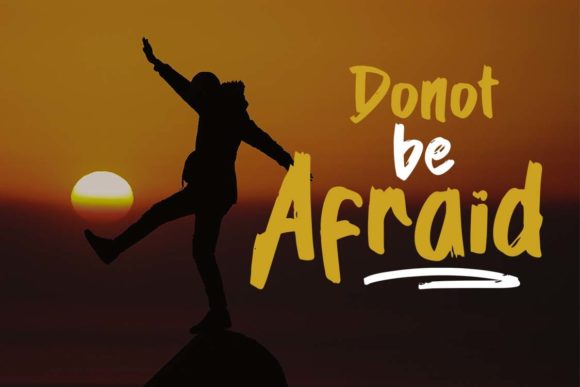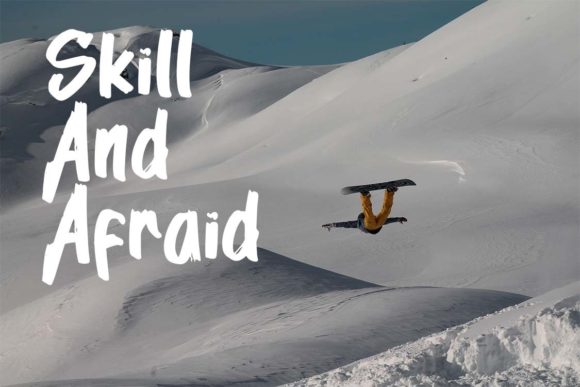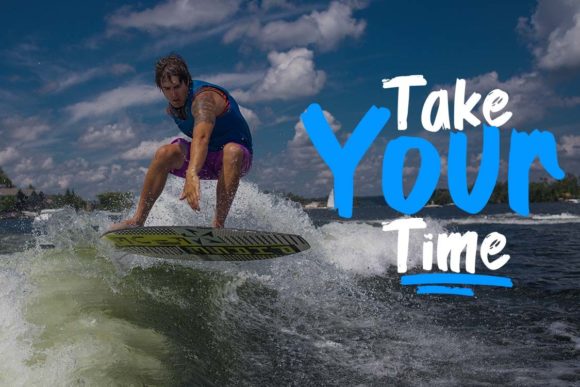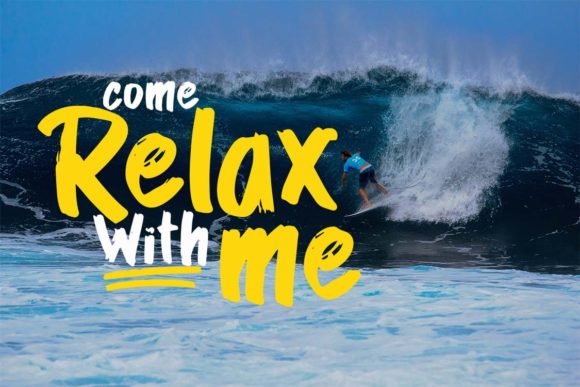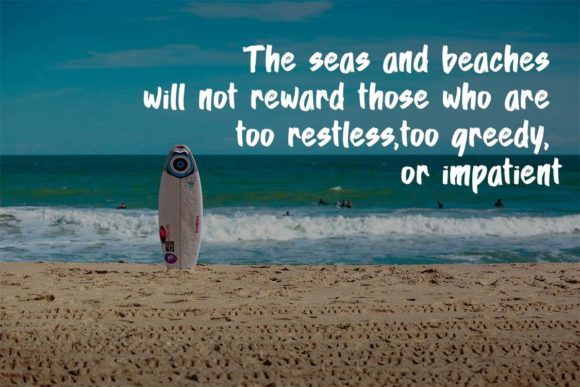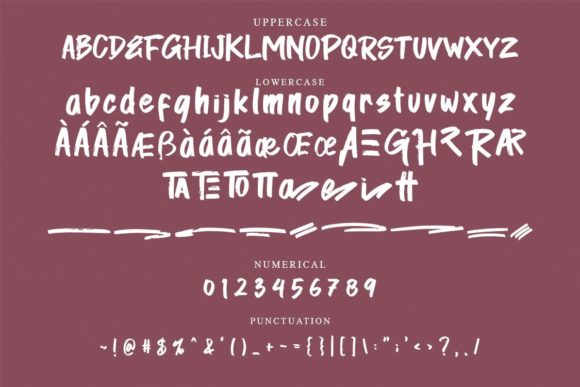
Introduction to Anbeaten Font
Have you ever found yourself in the middle of a creative project, desperately searching for the perfect font to bring your vision to life? I’m sure many designers can relate to that feeling of frustration and excitement that comes with discovering a game-changing design resource. For those moments, I’d like to introduce you to the Anbeaten Font, a beautiful display font that’s sure to elevate your high-quality designs to the next level.
With its unique brush style and handwritten scratches, the Anbeaten Font is the perfect addition to any creative project. Whether you’re designing magazine previews, covers, logos, or shirts, this versatile font is sure to make your products stand out from the crowd. Plus, its transparent background makes it a breeze to work with, allowing you to focus on what really matters – creating something truly unique and eye-catching.
Key Features of Anbeaten Font
- High-quality design resource suitable for creative projects, including graphic design, digital art, and publishing.
- Features a transparent background, allowing for easy customization and integration into various design elements.
- Includes a range of characters, including uppercase and lowercase letters, numbers, and special symbols, making it a versatile design resource.
- Designed to be highly legible and visually appealing, making it an excellent choice for creative projects requiring a unique and eye-catching font.
Honest Review: Anbeaten Font
As a designer, I’m always on the lookout for high-quality design resources to elevate my creative projects. The Anbeaten Font caught my attention, and I was excited to give it a try.
- ✨ The Anbeaten Font has a unique and playful style that can add a lot of personality to a design.
- ✨ The transparent background makes it easy to layer over other design elements.
- ⚠️ The font may not be suitable for formal or professional designs, as it has a more casual feel.
- ⚠️ The font’s playfulness can also make it difficult to read at small sizes.
Overall, I think the Anbeaten Font is a great addition to any designer’s toolkit. While it may have some limitations, its unique style and free availability make it a valuable resource for creative projects. I’d definitely consider using it again in the future.
Common Use Cases for Anbeaten Font
Anbeaten Font is ideal for creative projects that require a unique, high-quality font. It’s particularly useful for designing logos, branding materials, and other visual elements that require a transparent background.